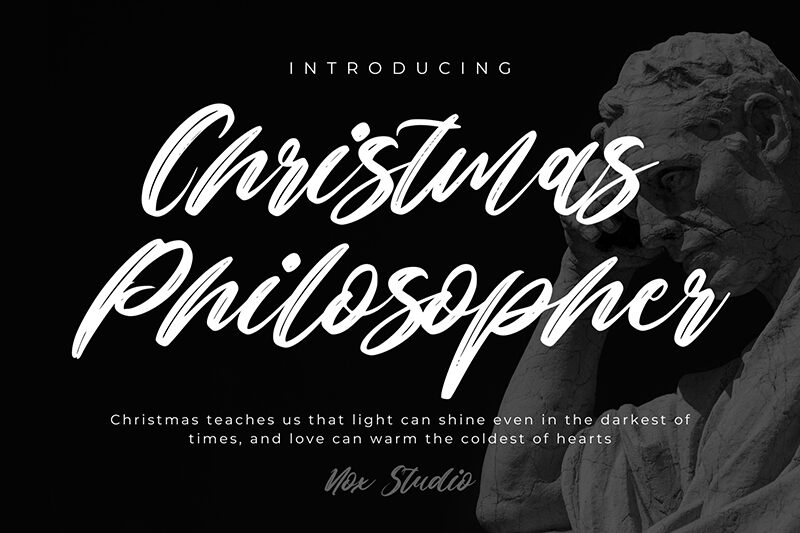
Christmas Philosopher
Christmas Philosopher font is a brush condensed typeface designed by Sarif Letter. This expressive font has a cursive flowing script style with elegant artistic strokes throughout its characters. Since the font comes in only one weight, it may either be used alone or with other matching styles for achieving additional visual effects.
Use the free handwritten font for many applications including book covers, blog headers, invitations, product packaging, TV show titles and intros. Christmas banners or lights alike of course belong among the possibilities too since this was specially created by the author for such use purposes.